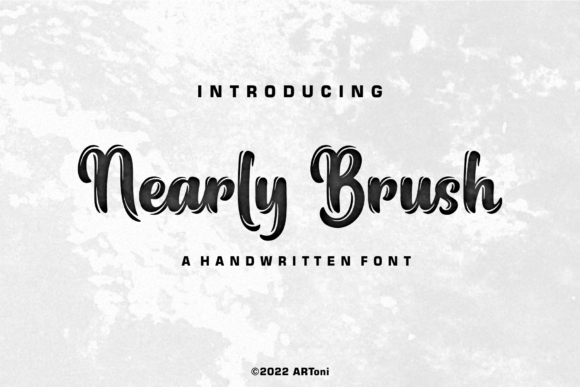
Step into the captivating world of Nearly Brush Font - the script typeface that exudes boldness, style, and elegance, making it a perfect choice for those seeking a touch of handwritten charm in their designs. Let your creativity soar as you explore the distinctive strokes and round letters of Nearly Brush, infusing your projects with a luxurious spark that will leave a lasting impression.
With its carefully crafted glyphs and ligatures, Nearly Brush offers endless possibilities to express your unique vision. Whether you're crafting stunning banners, eye-catching posters, or captivating social media posts, this font will elevate your designs to new heights of sophistication. Its playful yet poised nature makes it an ideal choice for branding, logo design, and packaging, evoking a sense of playfulness and exclusivity.
Unlock the full potential of Nearly Brush and watch your designs take center stage. Its PUA-encoded format ensures seamless access to a treasure trove of remarkable glyphs and ligatures, allowing you to effortlessly incorporate intricate details and stylish flourishes into your creations. With Nearly Brush, you'll discover a font that not only elevates your designs but also captivates your audience.
Whether you're a seasoned designer or just starting your creative journey, Nearly Brush is your ultimate companion for crafting designs that speak volumes. Its versatility extends from the delicate curves of wedding invitations to the bold statements of product packaging, making it a true asset to your design arsenal. Embark on a creative adventure with Nearly Brush and unlock a world of possibilities, where your designs will shine brighter than ever before.